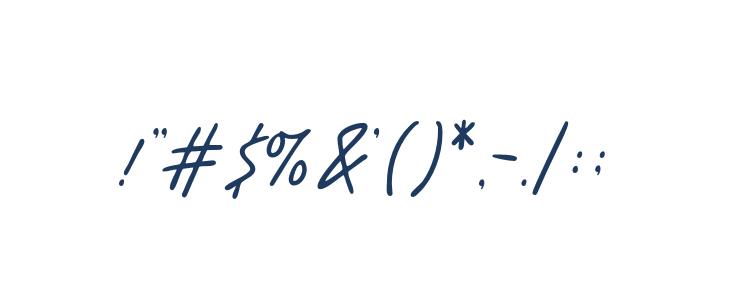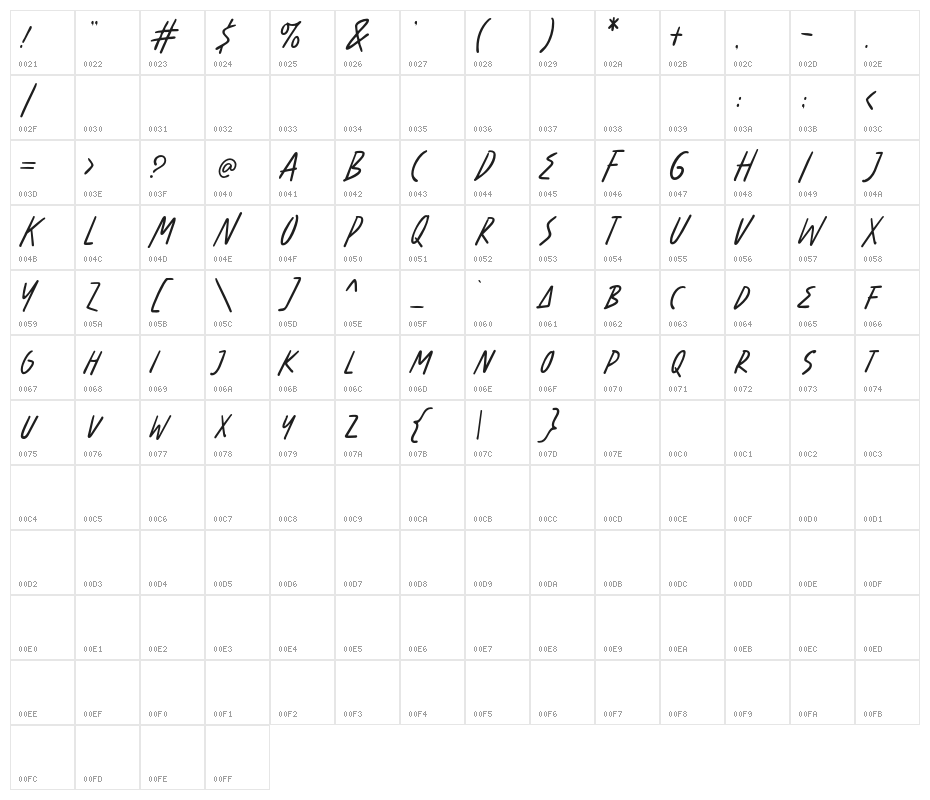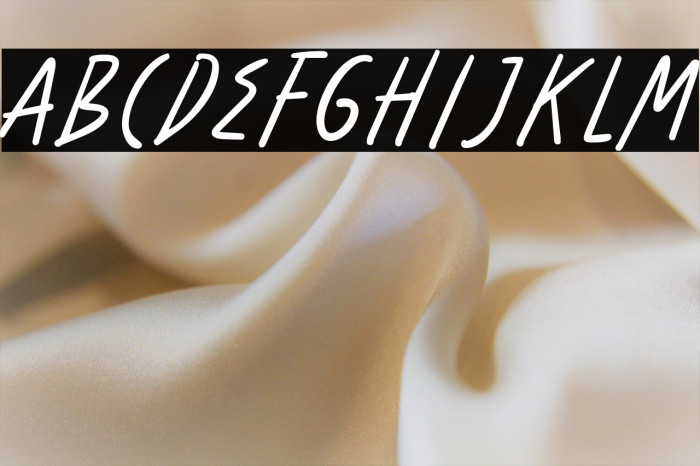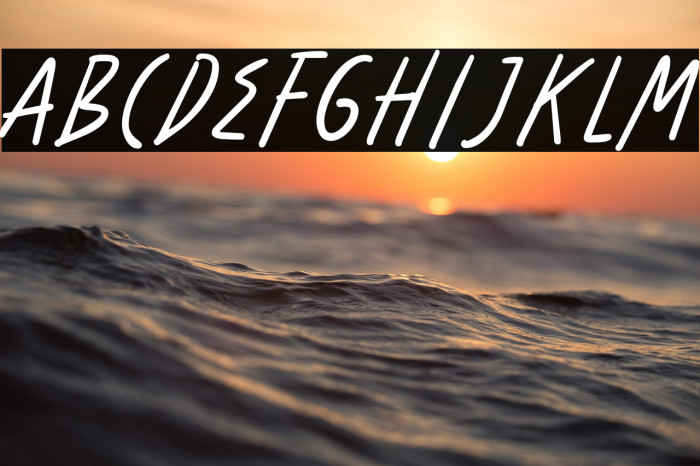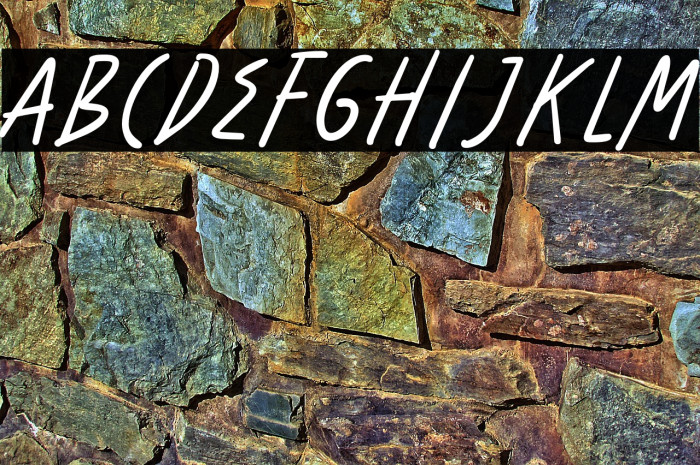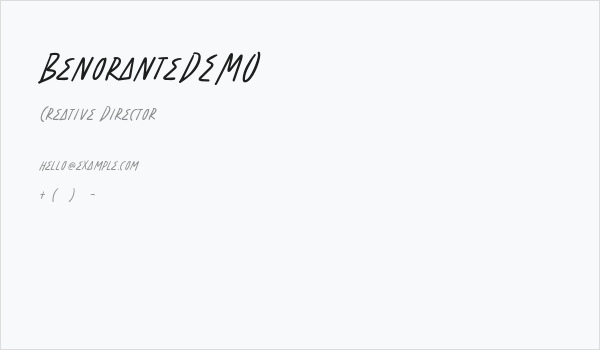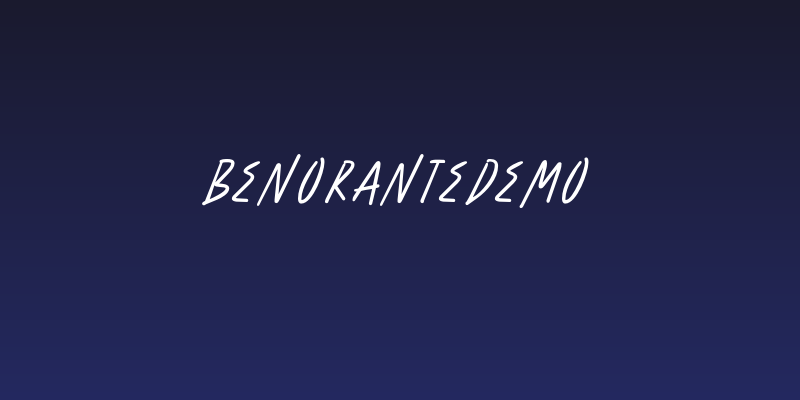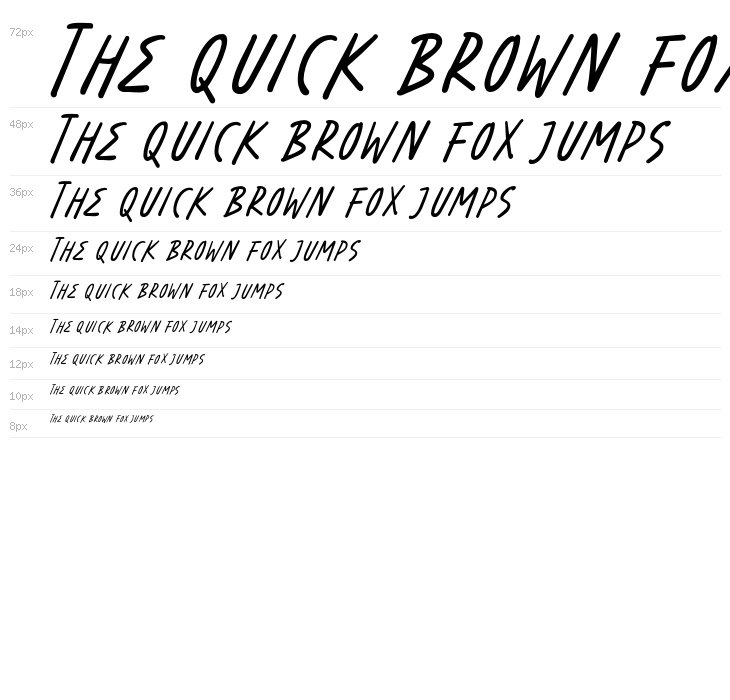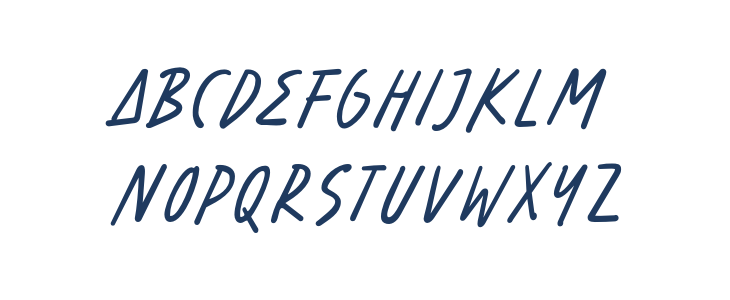
BenoranteDEMO Font
BenoranteDEMO Description
This font features a dynamic and energetic handwritten style, characterized by its fluid and slightly slanted letterforms. The uppercase and lowercase letters maintain a consistent rhythm, with a playful yet sophisticated appearance. The strokes are smooth and slightly varied in thickness, adding a touch of personality and warmth. The numerals and special characters complement the alphabet with similar fluidity, making it versatile for various design applications. Its informal yet elegant style makes it suitable for creative projects that require a personal touch.
| Proposed Projects | Ideal for greeting cards, invitations, personal branding, and creative social media graphics. |